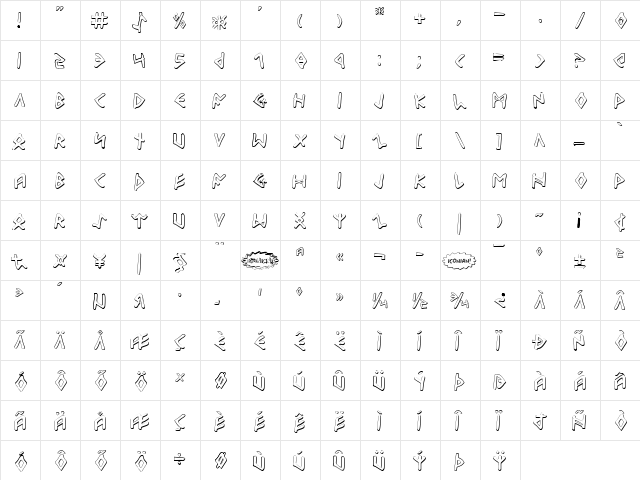
Odinson Outline Outline
Design Context for Odinson Outline Typeface
Odinson Outline brings ornamental detail and strong personality to headlines and identities, where visual impact matters more than quiet functionality.
Font Pairing: Pair with a clean neutral sans-serif for body copy to let Odinson Outline's character lead without overwhelming the composition.
Pro Tip: Treat Odinson Outline as the centrepiece of your typographic hierarchy. One strong heading set in a decorative face can carry an entire layout.